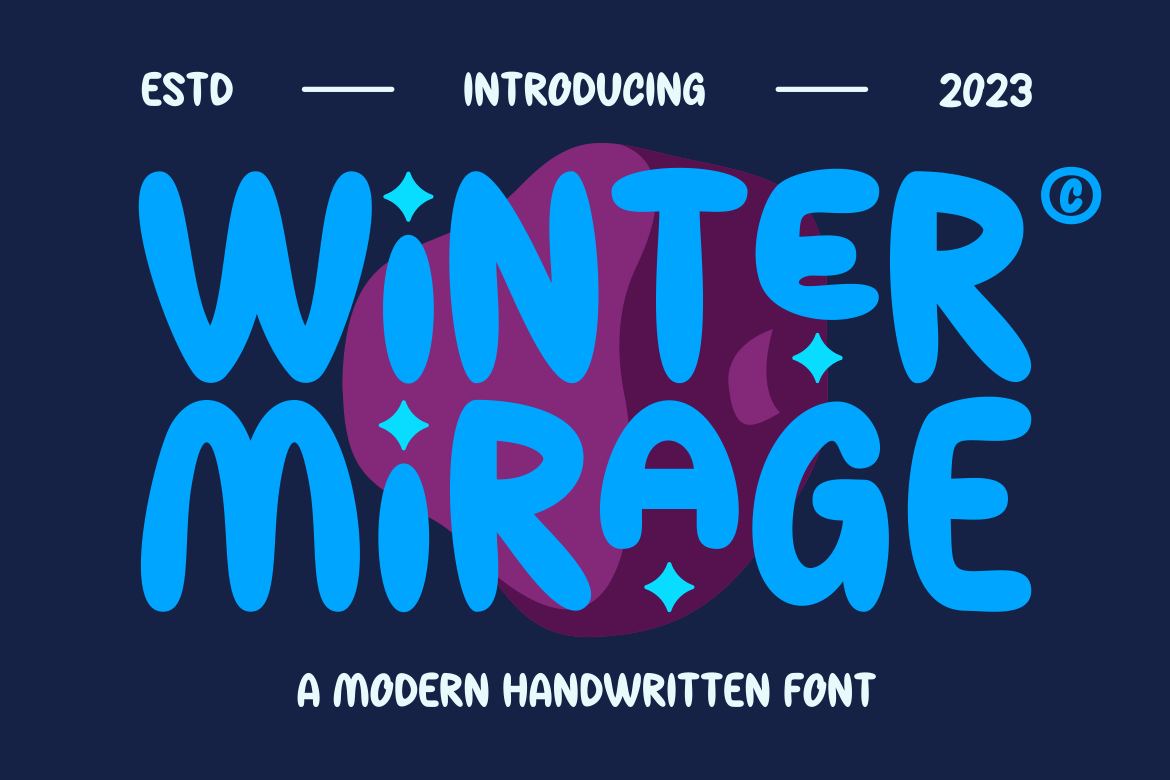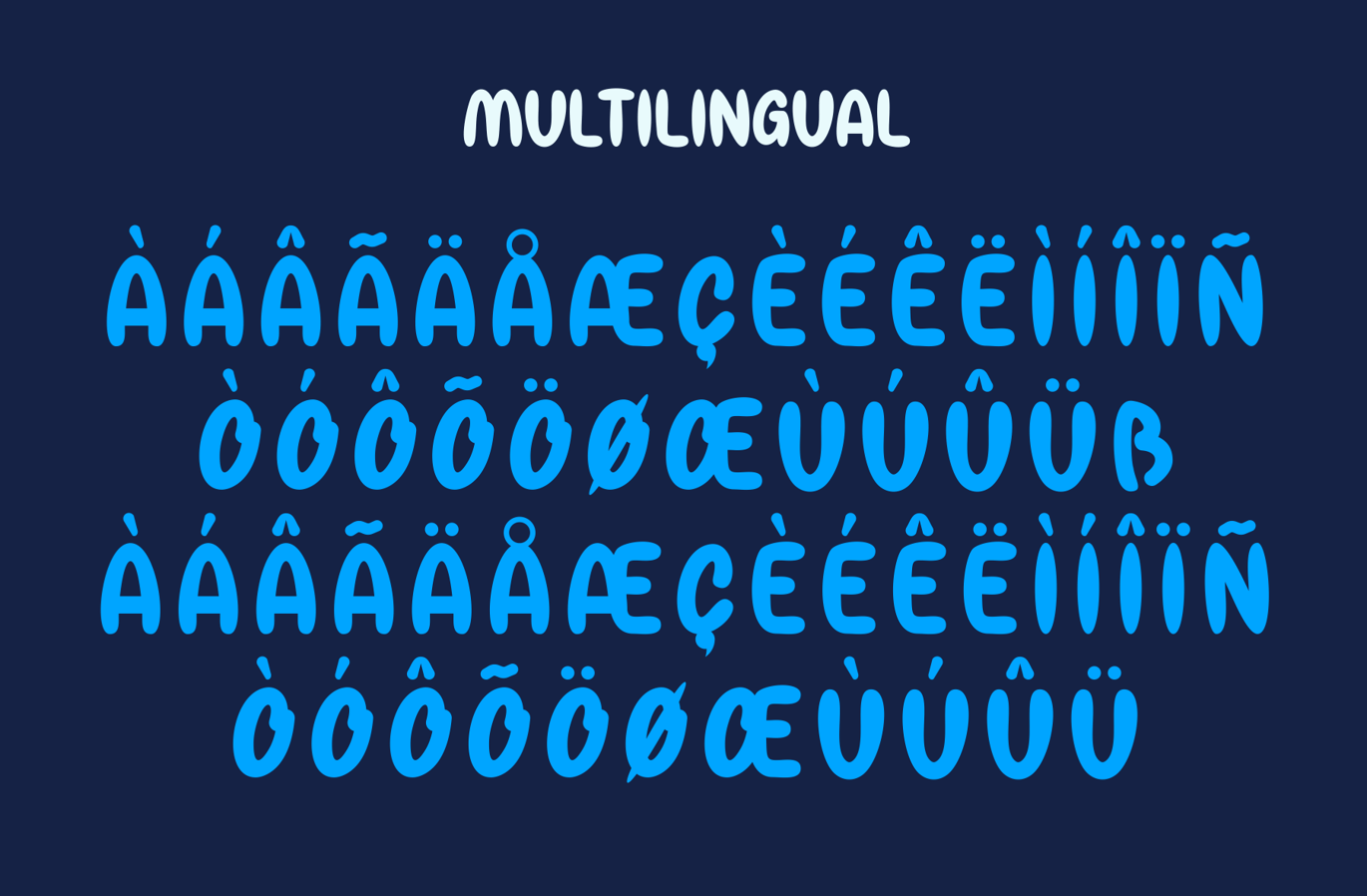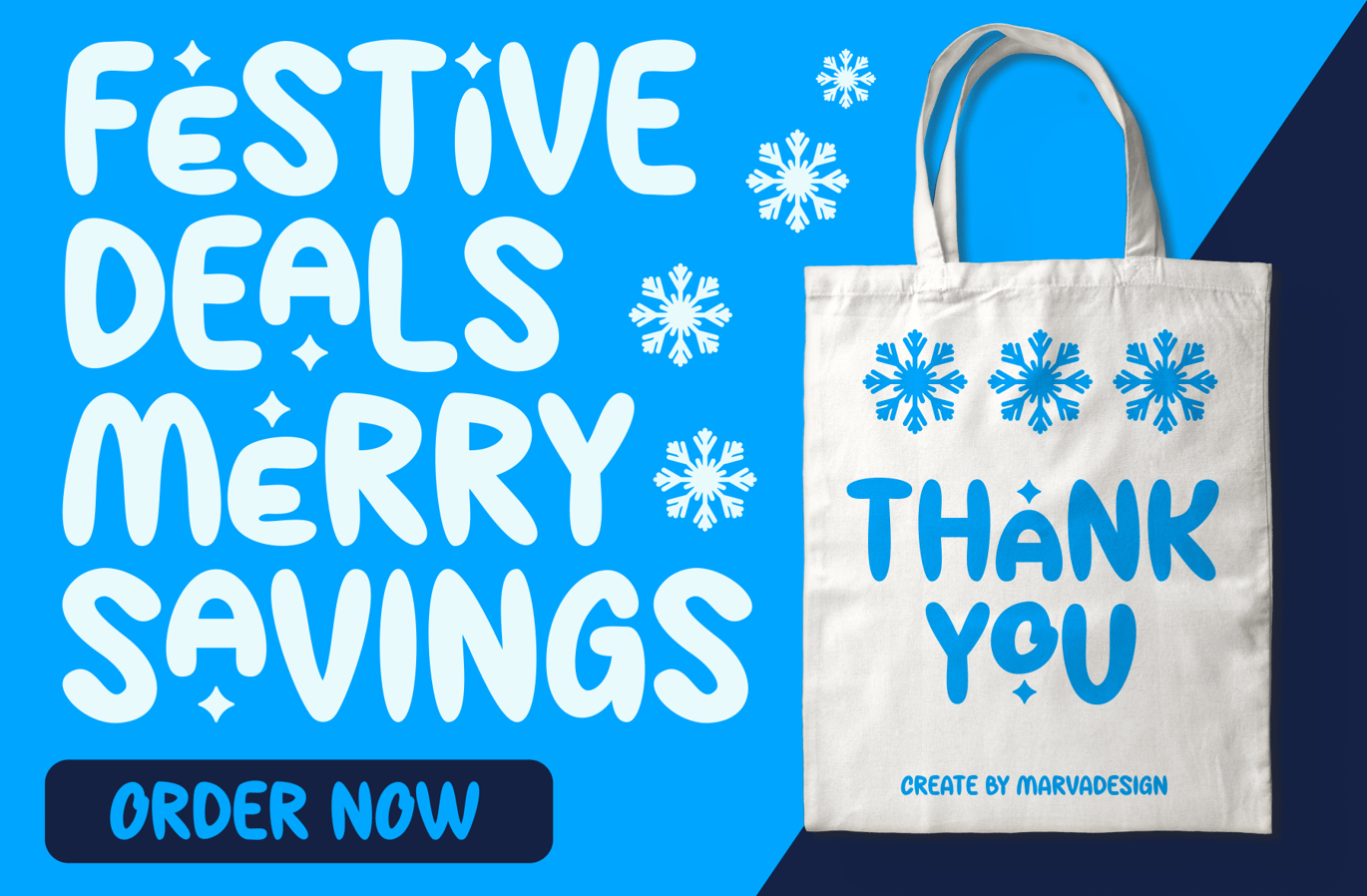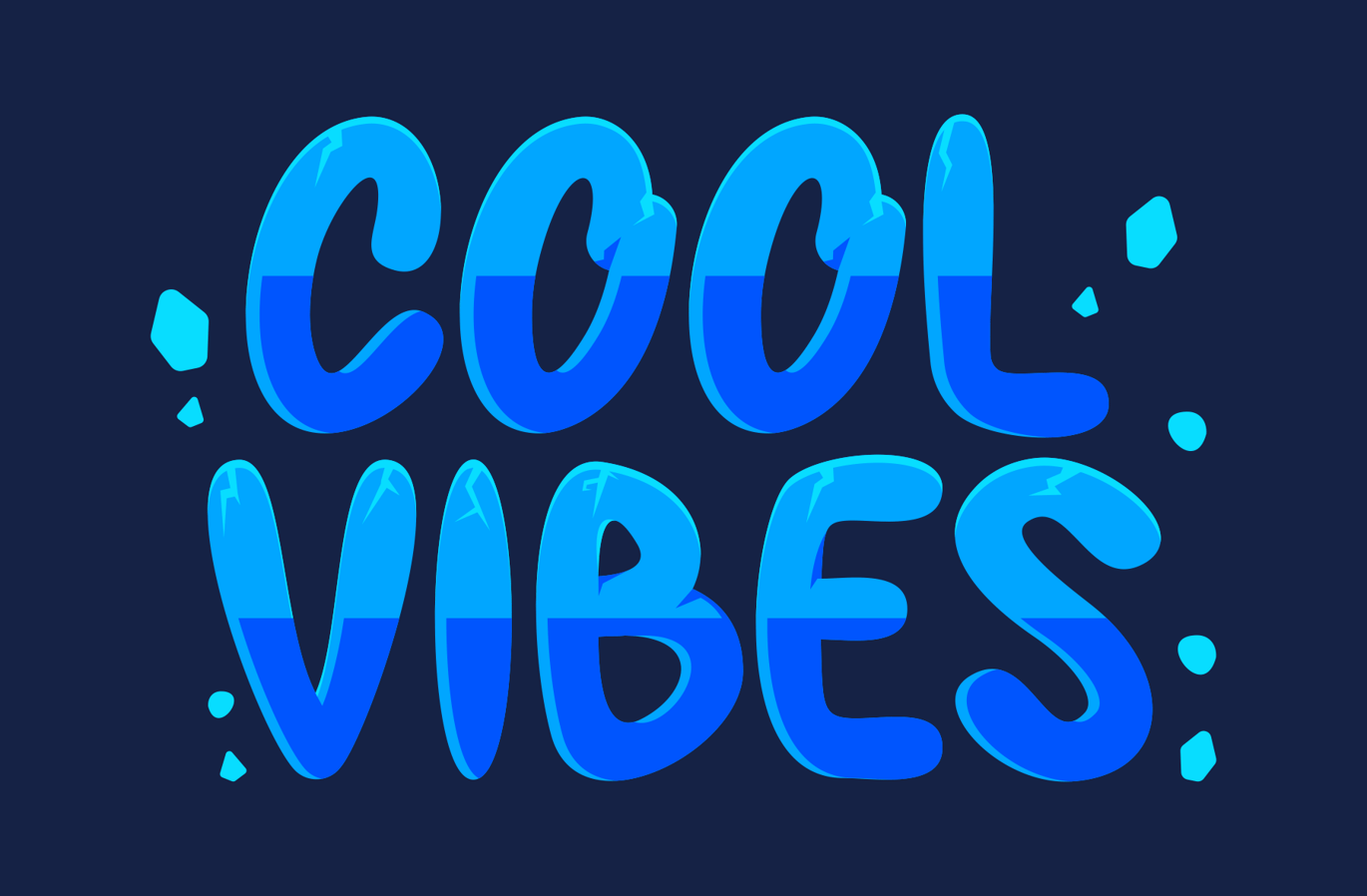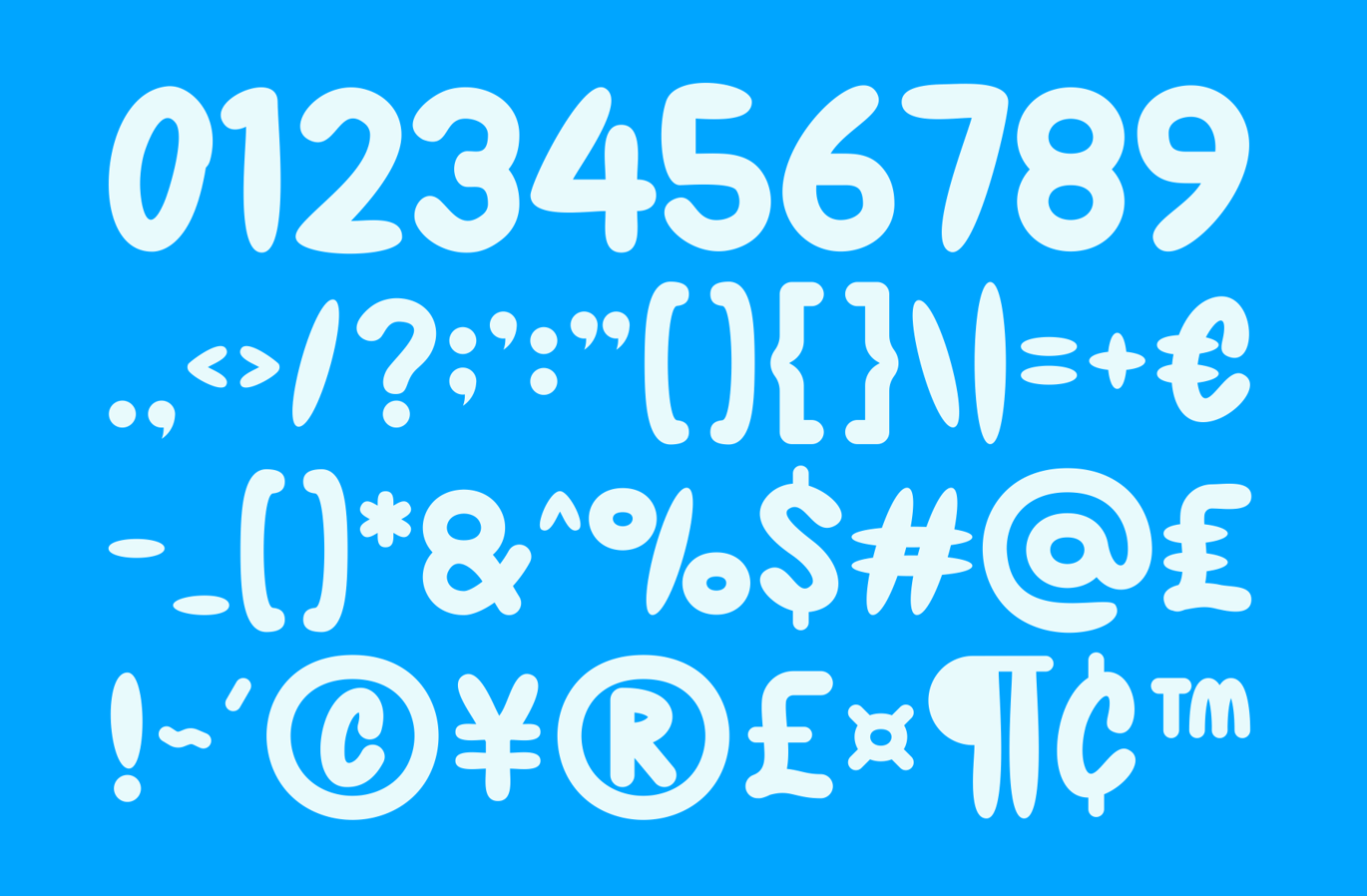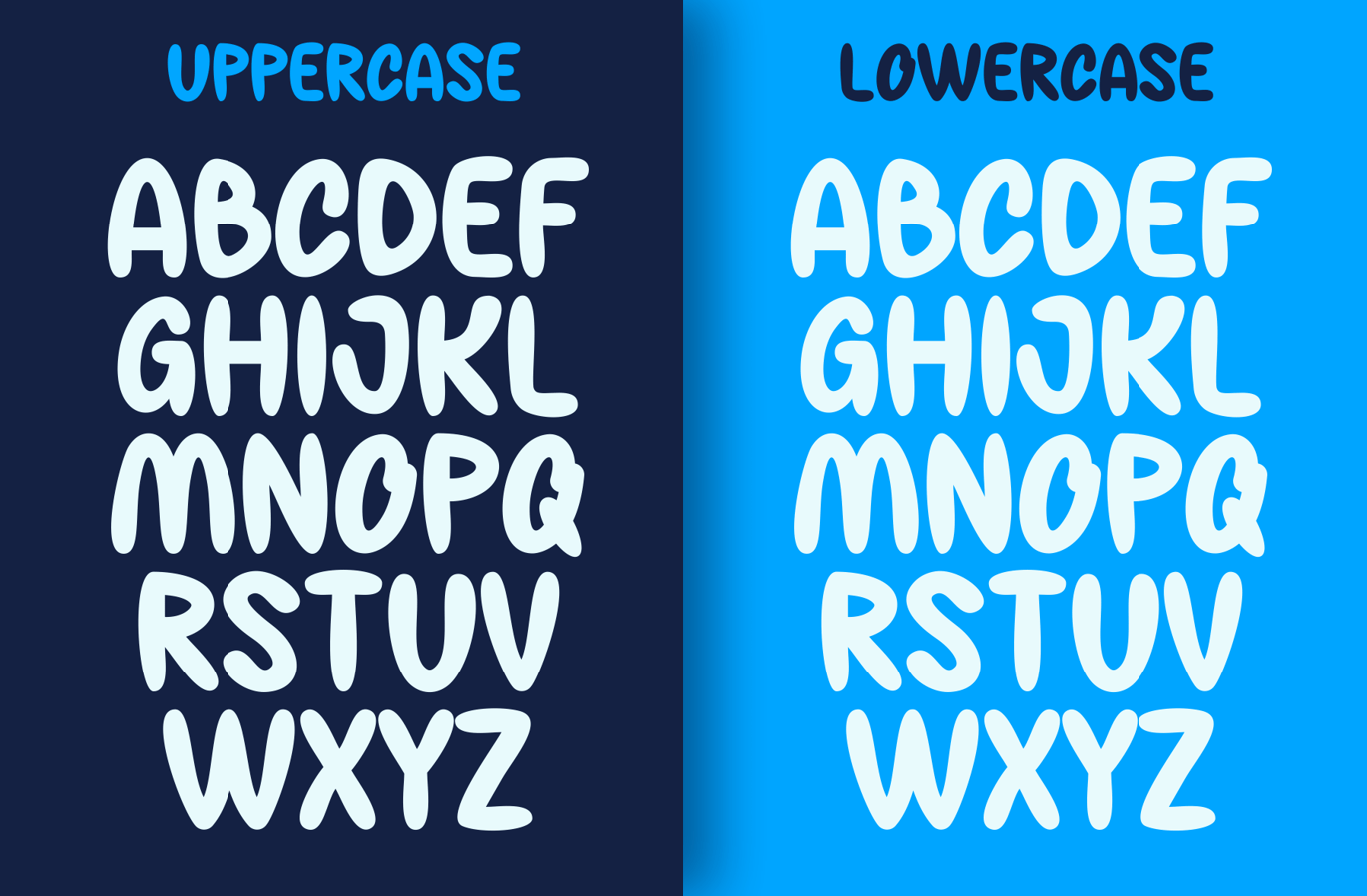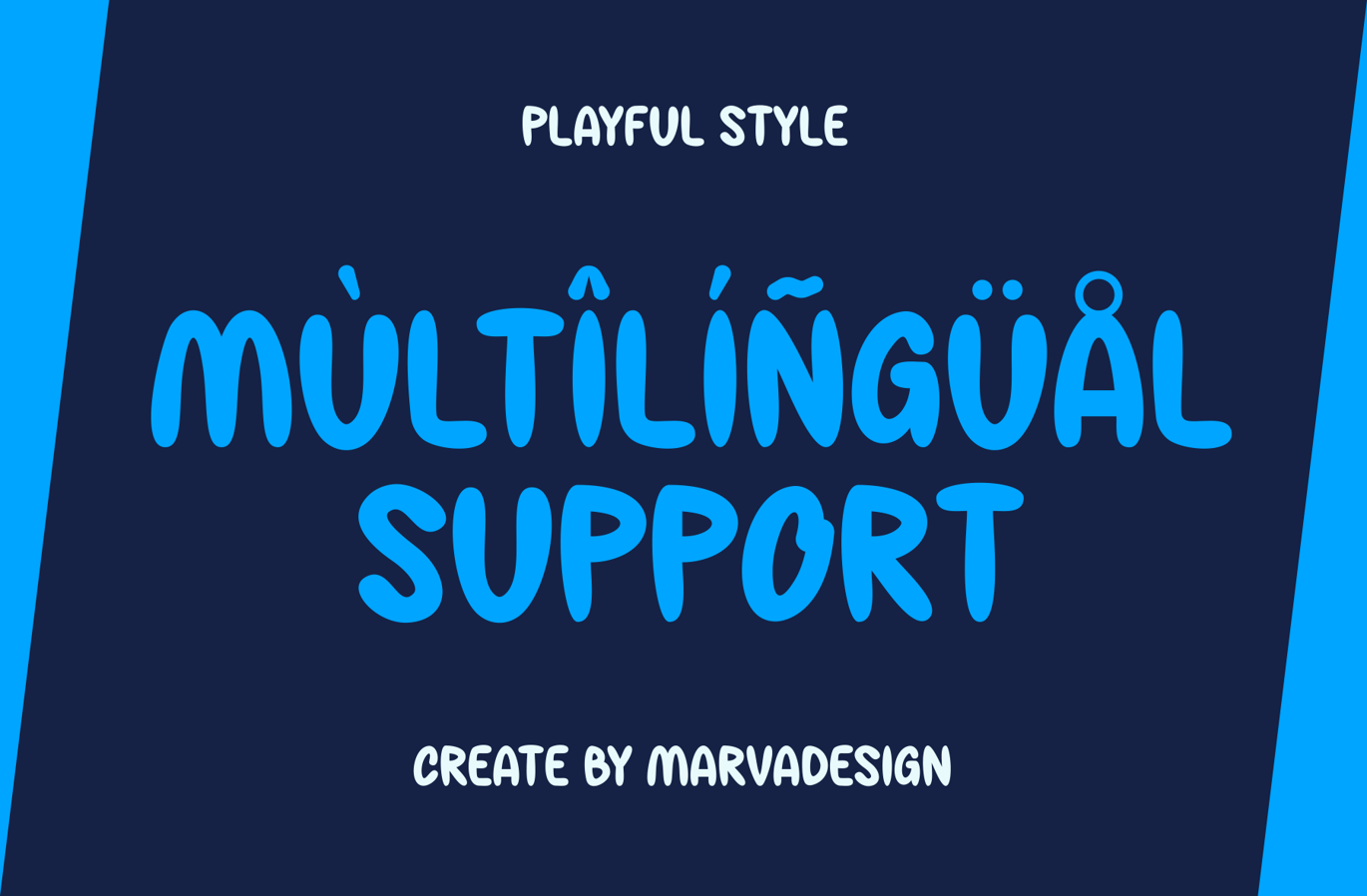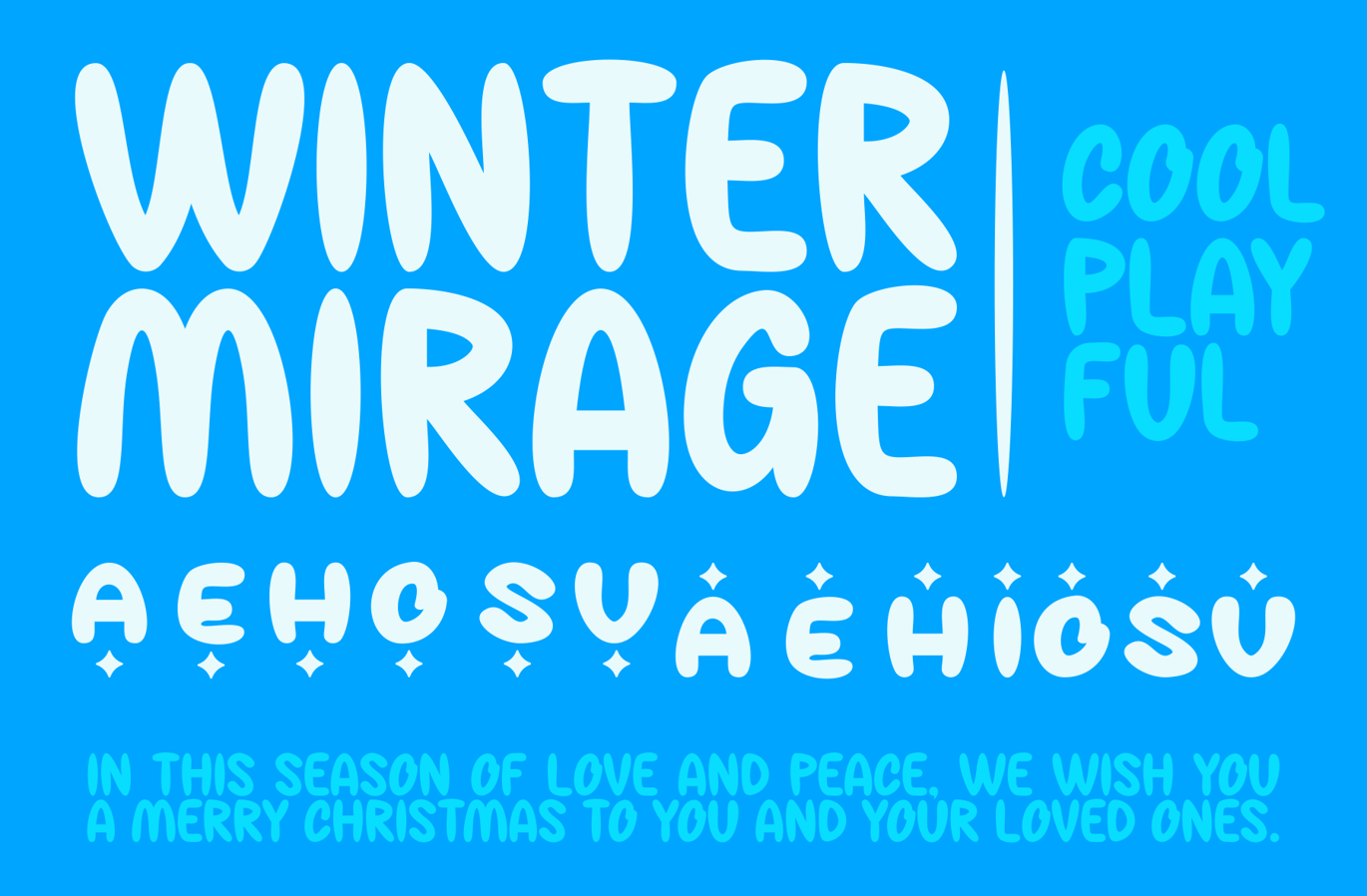
Winter Mirage – A Modern Christmas Playful Font
Introducing our new product Winter Mirage Font – Modern Font
Winter Mirage Font – Modern Font is a bold and authentic display font. The font is suitable for any branding project like logo, Template Design, Product and many more. outstanding in a wide range of contexts.